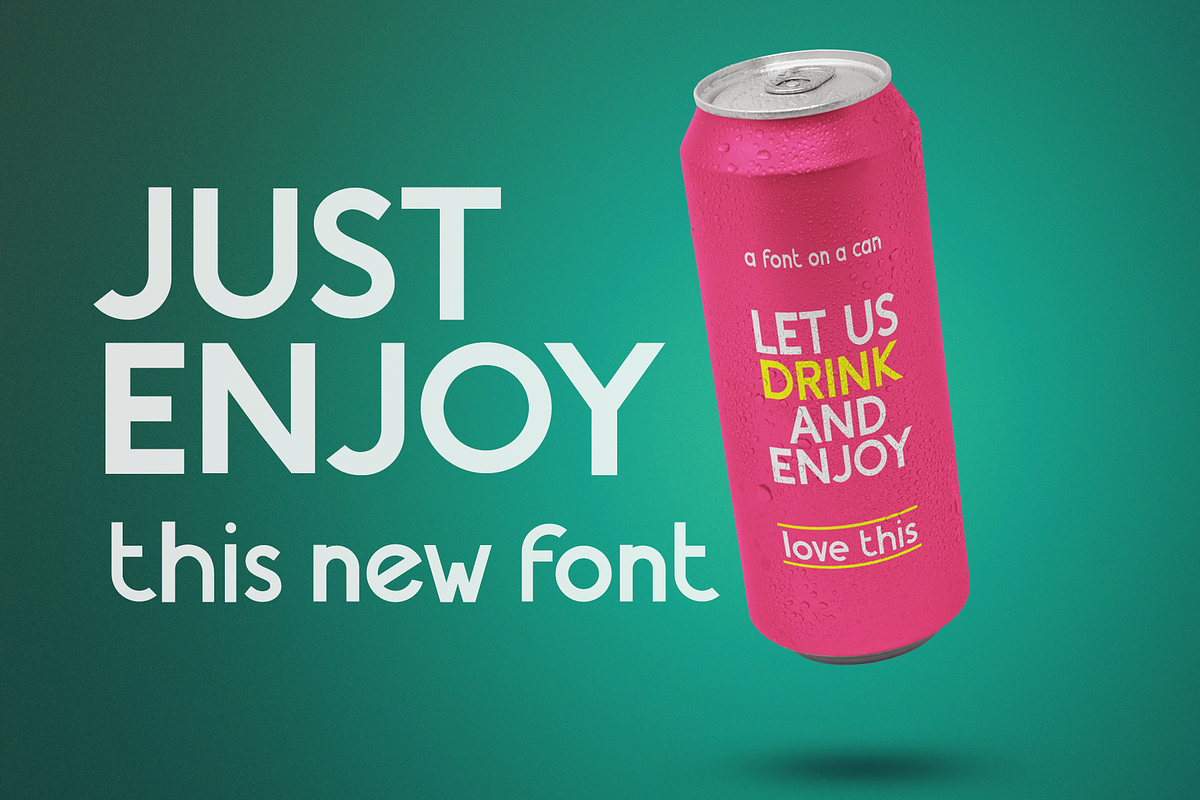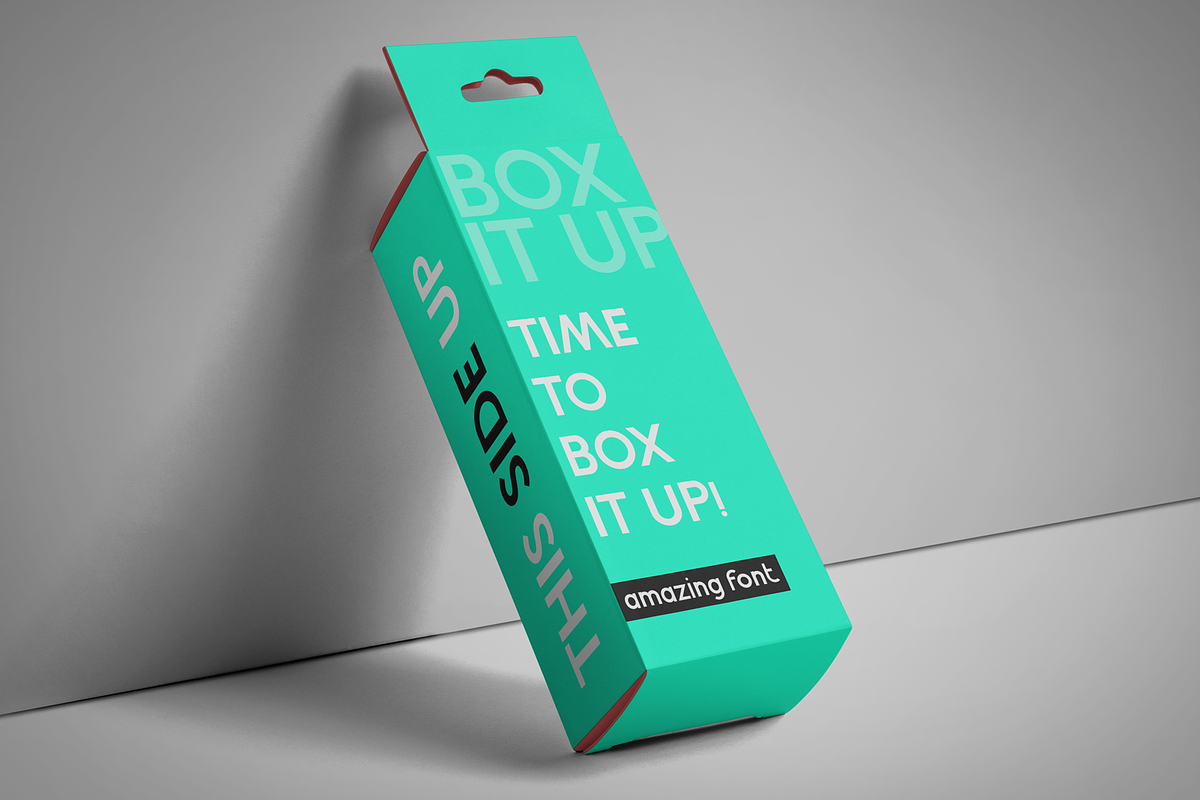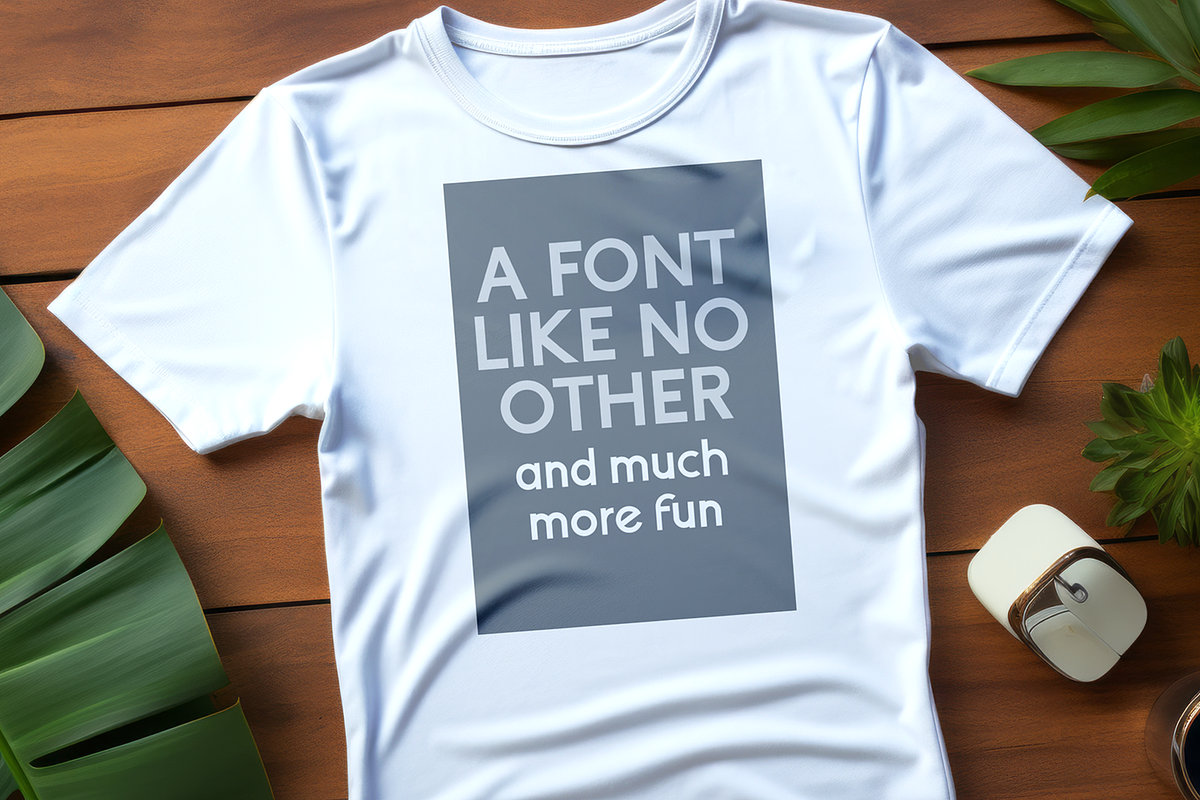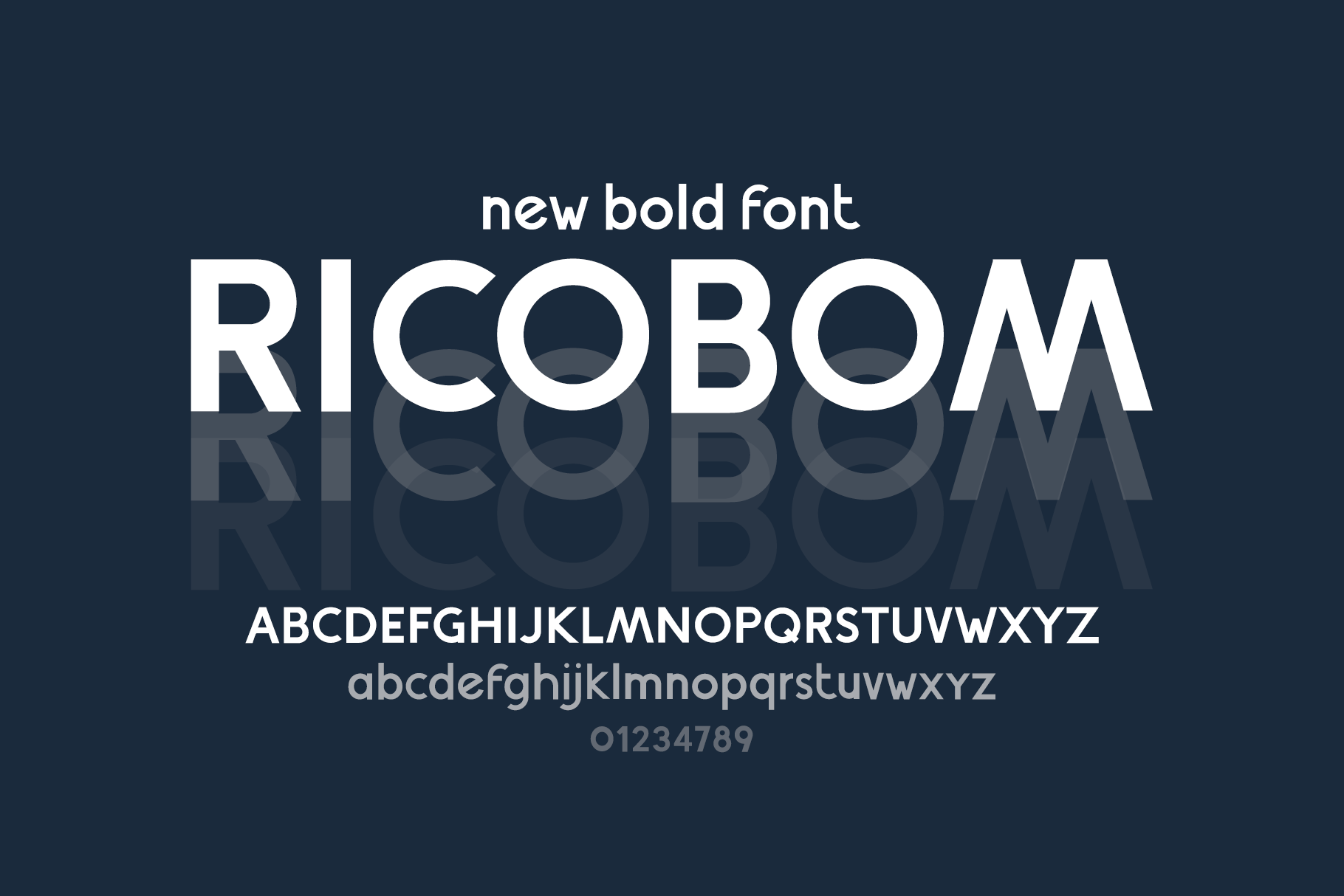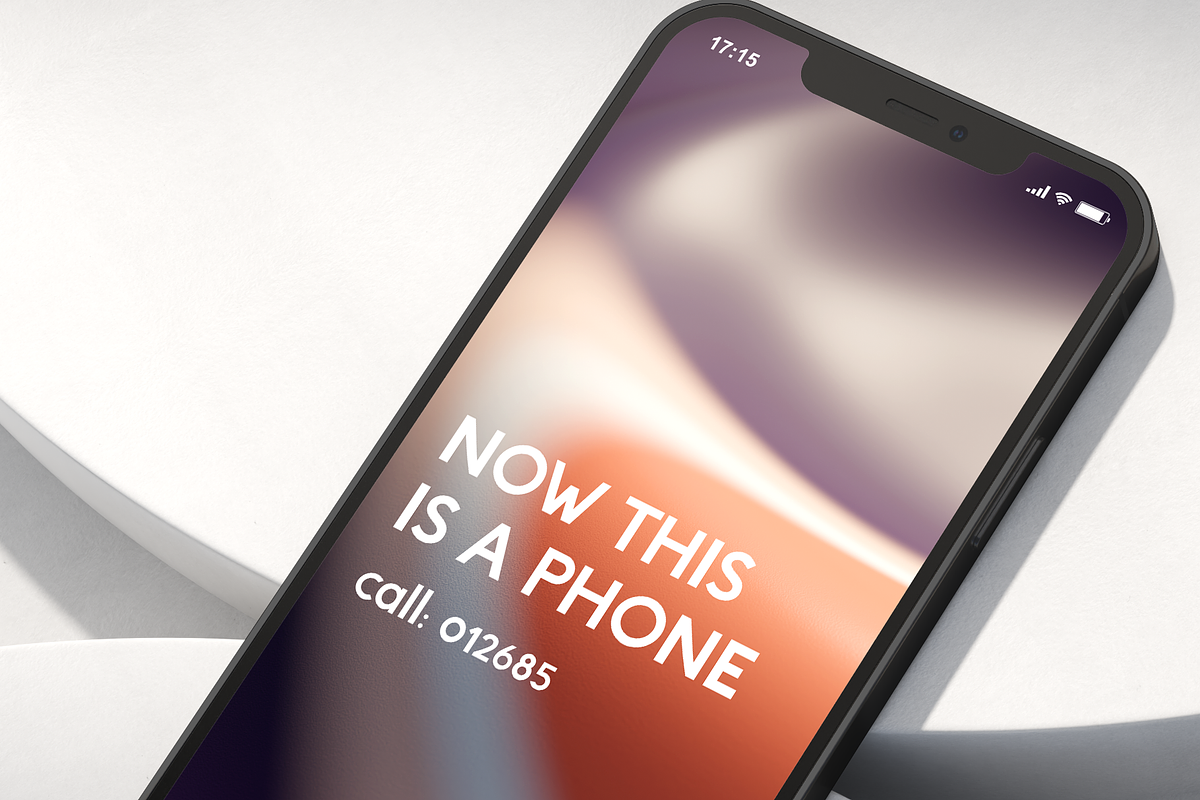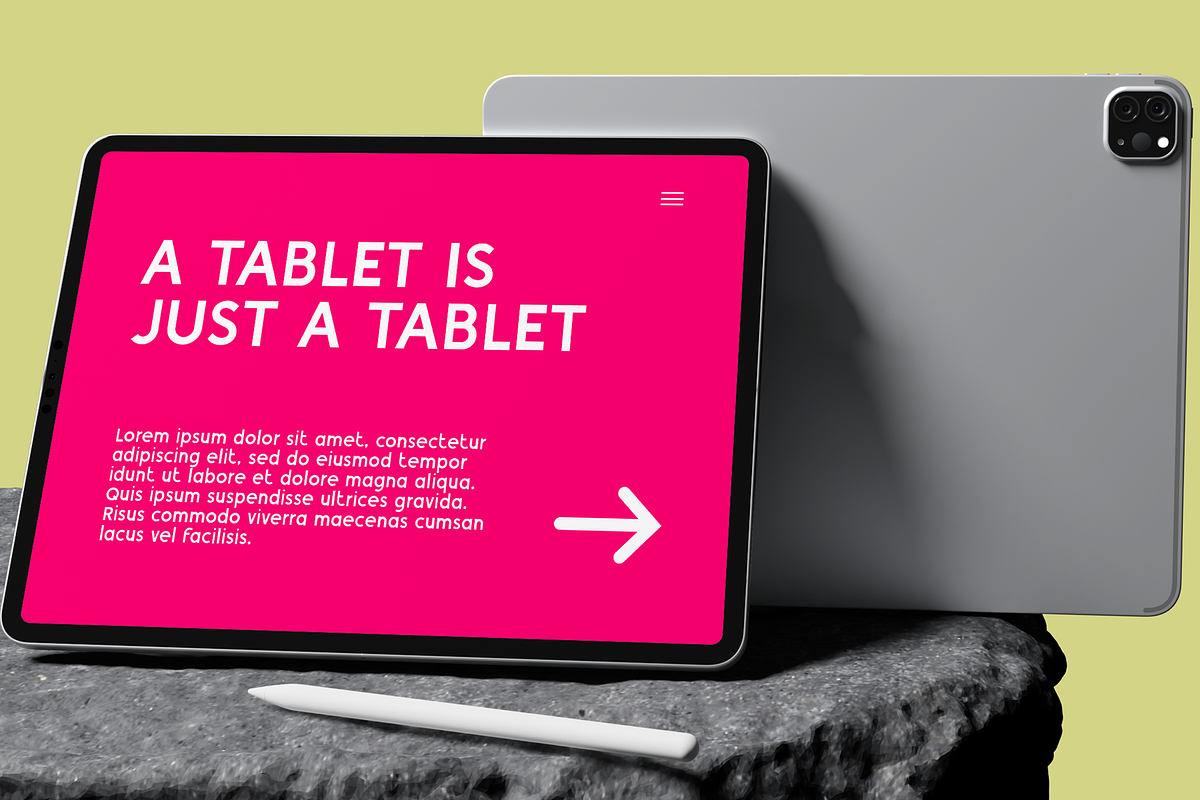
RicoBom Bold Display Font
Bring the groove back with RicoBom, a bold retro-inspired display font that radiates vintage charm and modern flair. Perfectly designed for posters, album covers, branding, and standout headlines, RicoBom makes every word pop with personality.
Features: Uppercase A–Z Lowercase a-z Numbers 0–9 Basic punctuation
With its chunky letterforms and nostalgic vibe, RicoBom is ideal for: Music & fashion branding Retro logos Event flyers & posters Social media graphics Creative editorial design
Whether you're channeling a 70s disco aesthetic or just want your text to shout style, RicoBom has the flair you need.